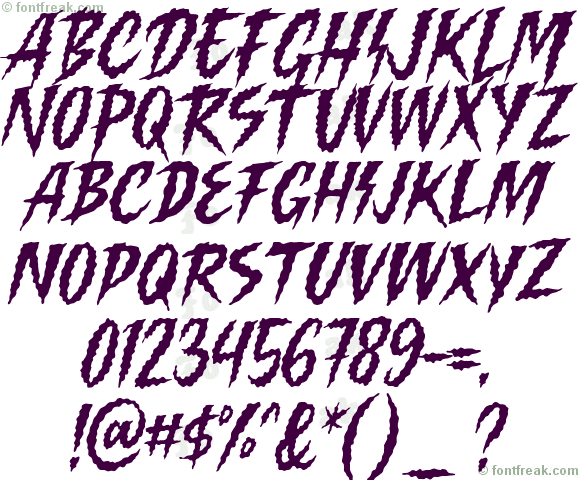
Killing Harmonic
Killing Harmonic — Character Map
About Killing Harmonic
Killing Harmonic by Situjuh Nazara is a striking display font that captures attention with its unique and bold aesthetic. This font features sharp, jagged edges that evoke a sense of dynamism and urgency, making it ideal for projects that require an impactful visual presence. The stroke weight is varied, providing an exciting contrast that enhances its dramatic flair. The spacing is tight, contributing to a compact and cohesive look that is both eye-catching and memorable.
This font is particularly well-suited for a range of creative applications. It excels in designing movie posters where a sense of action or suspense is needed, and it can add a thrilling touch to album covers for music genres like rock or punk. Additionally, Killing Harmonic can be effectively used in branding for edgy restaurants or bars, where its intense style complements the overall ambiance. Graphic designers will appreciate its versatility for creating promotional materials, event flyers, and merchandise that stand out in a crowded marketplace.
In a sea of conventional typefaces, Killing Harmonic stands out due to its distinctive visual characteristics and energetic vibe. It conveys a sense of urgency and excitement, making it a perfect choice for projects that aim to grab attention. With the Killing Harmonic font free download, you can bring this bold and edgy typographic style into your work, ensuring your designs leave a lasting impression.